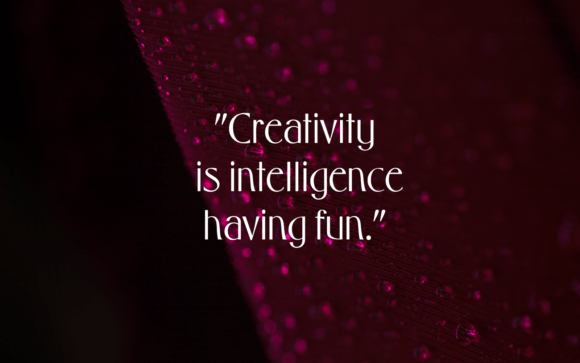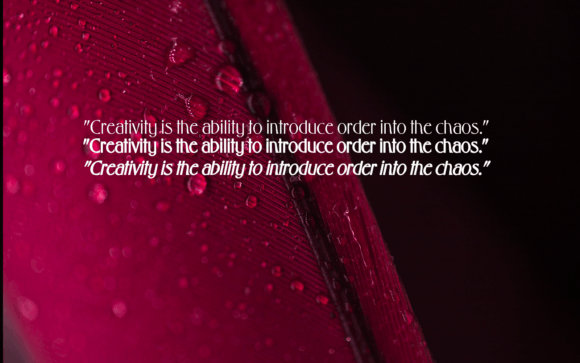
Unleashing Sophistication: The Power of Evo Elegance Font
Have you ever found yourself staring at a blank page, searching for the perfect font to bring your design to life? The moment of creative frustration is all too familiar for designers, but what if you stumbled upon a font that effortlessly combines elegance and modernity? This is where Evo Elegance Font comes into play, designed to elevate your projects with its refined appeal and sleek lines.
With Evo Elegance Font, you’ll discover a versatile tool that seamlessly adapts to various design fields, from luxury logos to digital design, and even modern branding. Its clean and harmonious letters, along with subtle line thickness variations, create a balanced and attractive appearance that’s sure to captivate your audience. Whether you’re a seasoned designer or just starting out, Evo Elegance Font is a valuable addition to your toolkit, waiting to help you unleash your creative vision.
Evo Elegance Font Key Features
- Font Family: Evo Elegance is a modern sans-serif font family designed for readability and elegance.
- Character Set: Supports a wide range of languages, including Latin, Cyrillic, and Greek alphabets, making it a versatile choice for global designs.
- Unique Characteristics: Evo Elegance features a clean and minimalist design with subtle rounded corners, making it perfect for modern branding and digital interfaces.
Evo Elegance Font Review
Overall, I was quite impressed with the Evo Elegance Font, but like any font, it has its strengths and weaknesses. Here’s my honest review.
- The elegant, refined feel of the font is perfect for high-end branding and marketing materials.
- The font is highly legible, making it great for body text as well as headings.
- The font family is well-designed, with a range of weights and styles that can be easily mixed and matched.
- The font may be too ornate for some designs, particularly those with a more minimalist aesthetic.
- The font family is not as extensive as some other popular font families, which may limit its versatility.
- The font may not be suitable for use in small sizes or on low-resolution displays, where its details may become lost.
Overall, I would recommend the Evo Elegance Font for designers looking for a high-end, elegant font for their branding and marketing materials. While it may have some limitations, its strengths make it a great choice for many applications.
Getting the Most Out of Evo Elegance
For optimal results, use Evo Elegance in conjunction with elegant and minimalist designs. This font is perfect for creating a sophisticated and refined look. Experiment with different font sizes and styles to find the perfect balance for your project.
Evo Elegance is ideal for use in:
– Luxury branding and marketing materials
– High-end product packaging and labeling
– Elegant digital displays and signage
The Great Vibes Font is a modern, elegant script font that is perfect for creating a sophisticated and luxurious look. It is ideal for use in high-end branding, packaging, and advertising materials. Compared to Evo Elegance, Great Vibes has a more playful and whimsical feel, making it suitable for creative industries such as fashion and beauty.
The Alex Brush Font is a elegant, handwritten font that is perfect for creating a personal and emotional connection with the audience. It is ideal for use in wedding invitations, greeting cards, and other creative projects where a touch of elegance is required. Compared to Evo Elegance, Alex Brush has a more organic and hand-drawn feel, making it suitable for projects that require a unique and personal touch.
The Carolyna Pro Font is a elegant, modern script font that is perfect for creating a sophisticated and luxurious look. It is ideal for use in high-end branding, packaging, and advertising materials. Compared to Evo Elegance, Carolyna Pro has a more refined and polished feel, making it suitable for projects that require a high level of sophistication and elegance.
Q: What is the recommended font size and line height for optimal readability with Evo Elegance Font?
For optimal readability, we recommend using a font size between 12pt and 18pt, with a line height of at least 1.2 to 1.5 times the font size. This will ensure that the text is clear and easy to read, while also maintaining the elegant and sophisticated feel of the Evo Elegance Font.